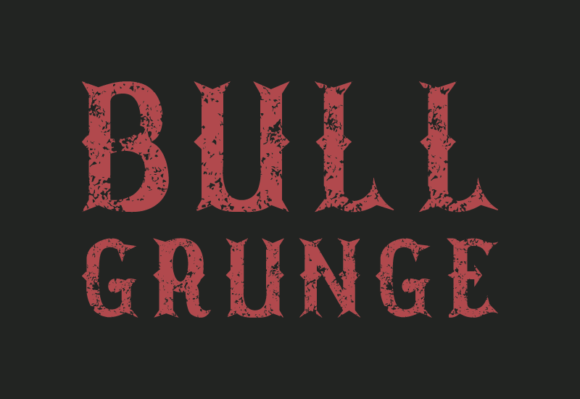
Bull Grunge Font
Bull Grunge is a simple Western-style Sans-Serif font designed for a clean retro look. With its vintage balanced proportions, this font is perfect for creating a minimalist aesthetic in logos, web design, and branding. This Bull Grunge font will make your design come alive.